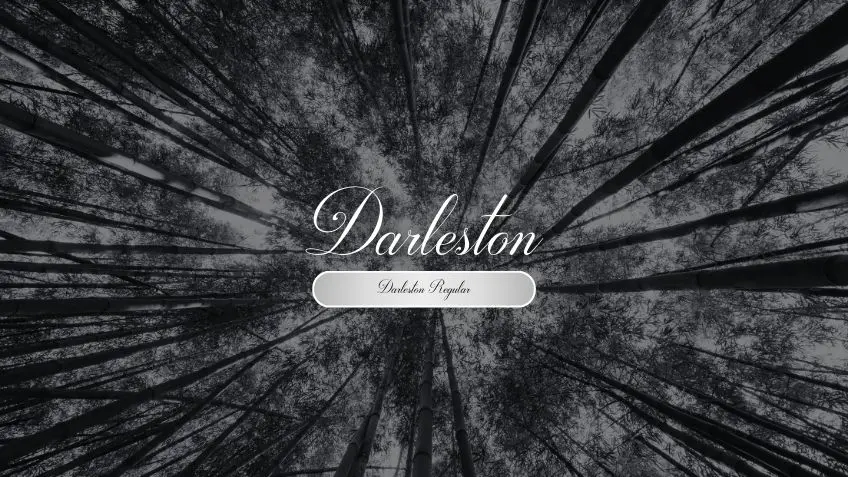
The font Darleston Regular, designed by Youssef Habchi, falls under the Script category & Darleston font family. Its smooth, flowing letterforms make it a versatile choice for projects that require both elegance and readability. Darleston is particularly well-suited for Creative Design Projects, Branding and Logos, Wedding and Event Stationery and Signatures and Watermarks. With its balance of simplicity and decorative appeal, this font brings a polished touch to both personal and professional designs.